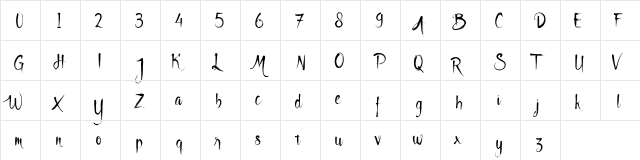
Godfeem Regular
| Foundry | alitsuarnegara |
| Designer | Alit Suarnegara |
Design Context for Godfeem Typeface
Godfeem is a composed and adaptable typeface that performs quietly and consistently across a wide range of design contexts.